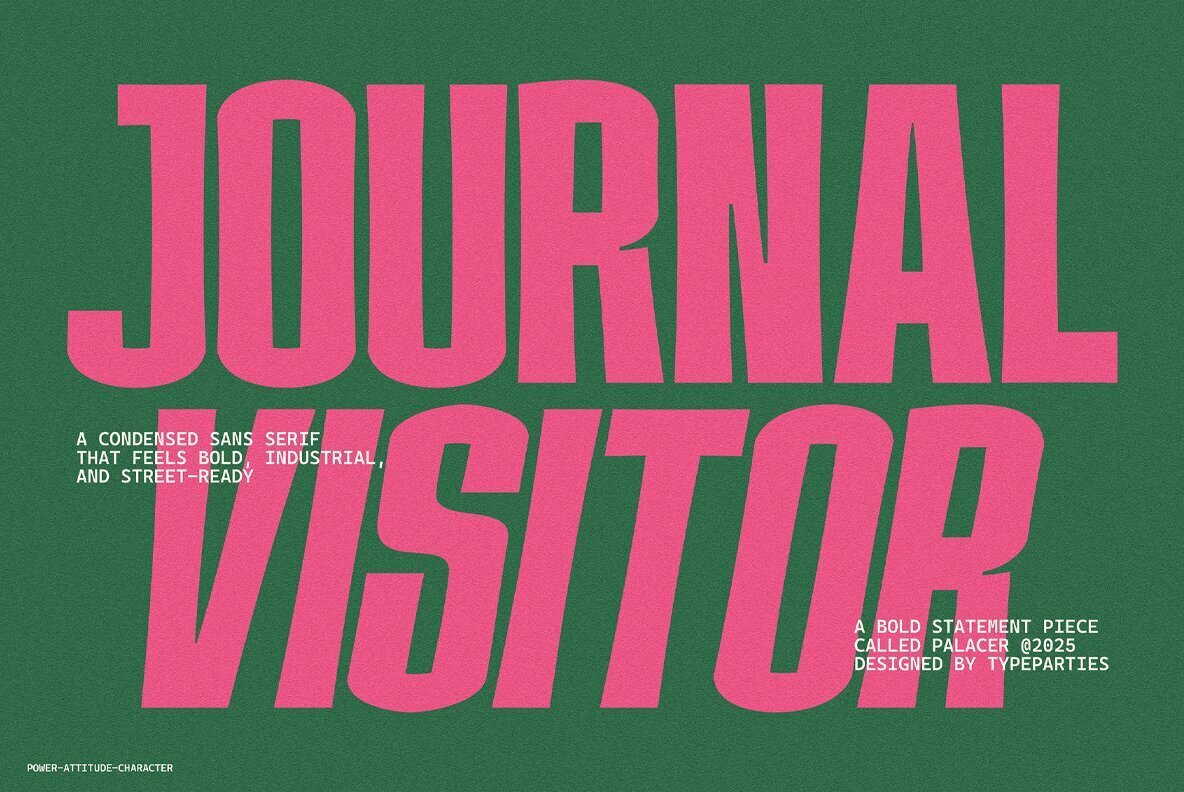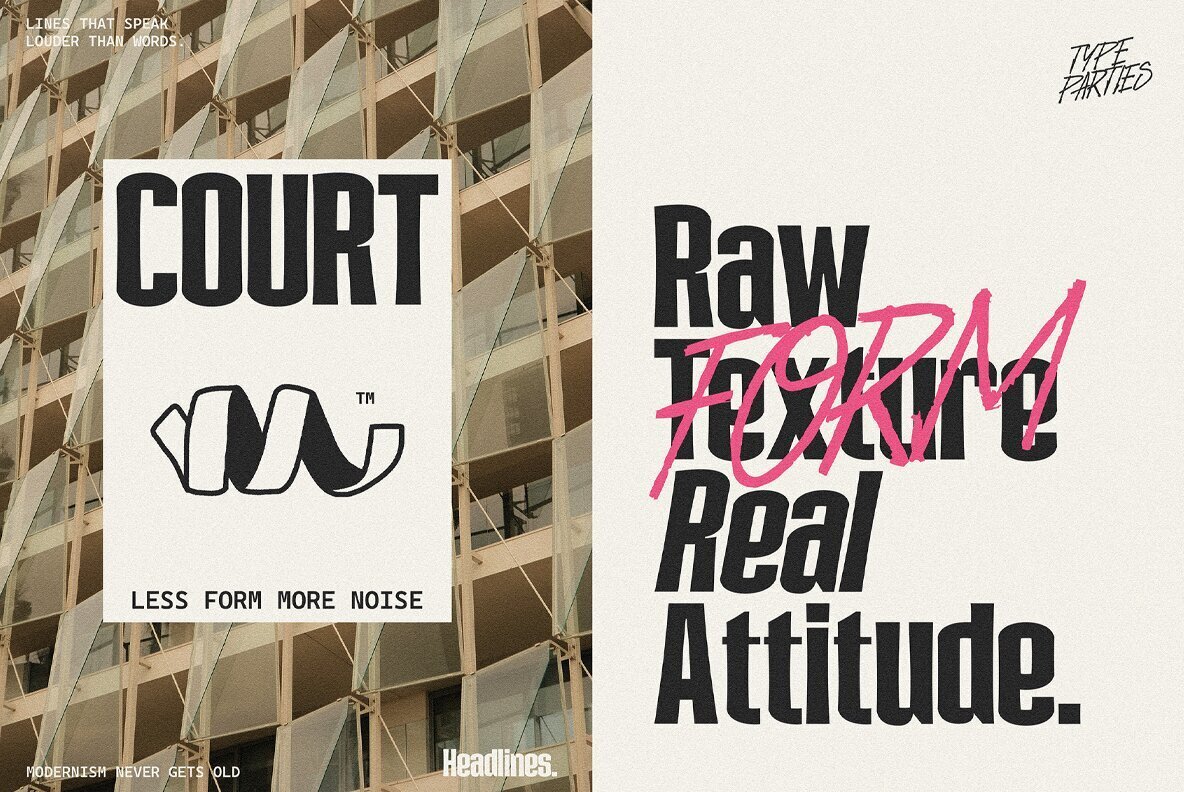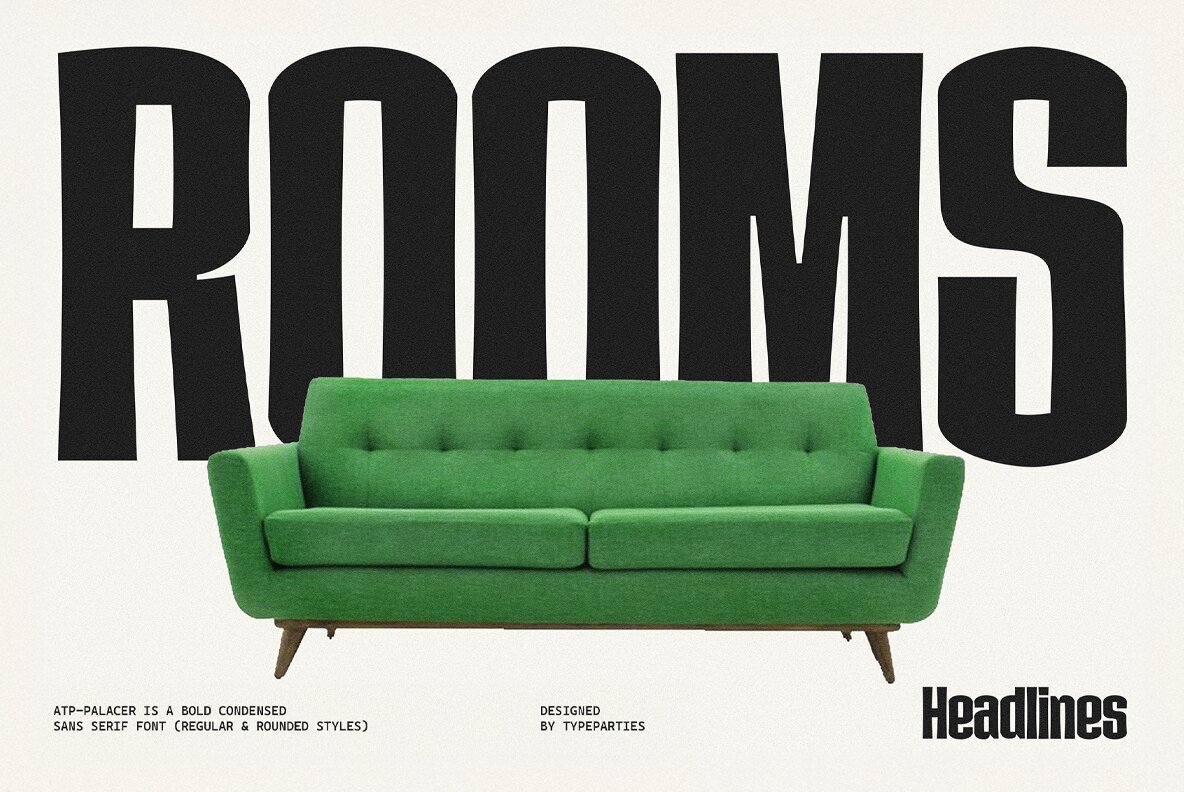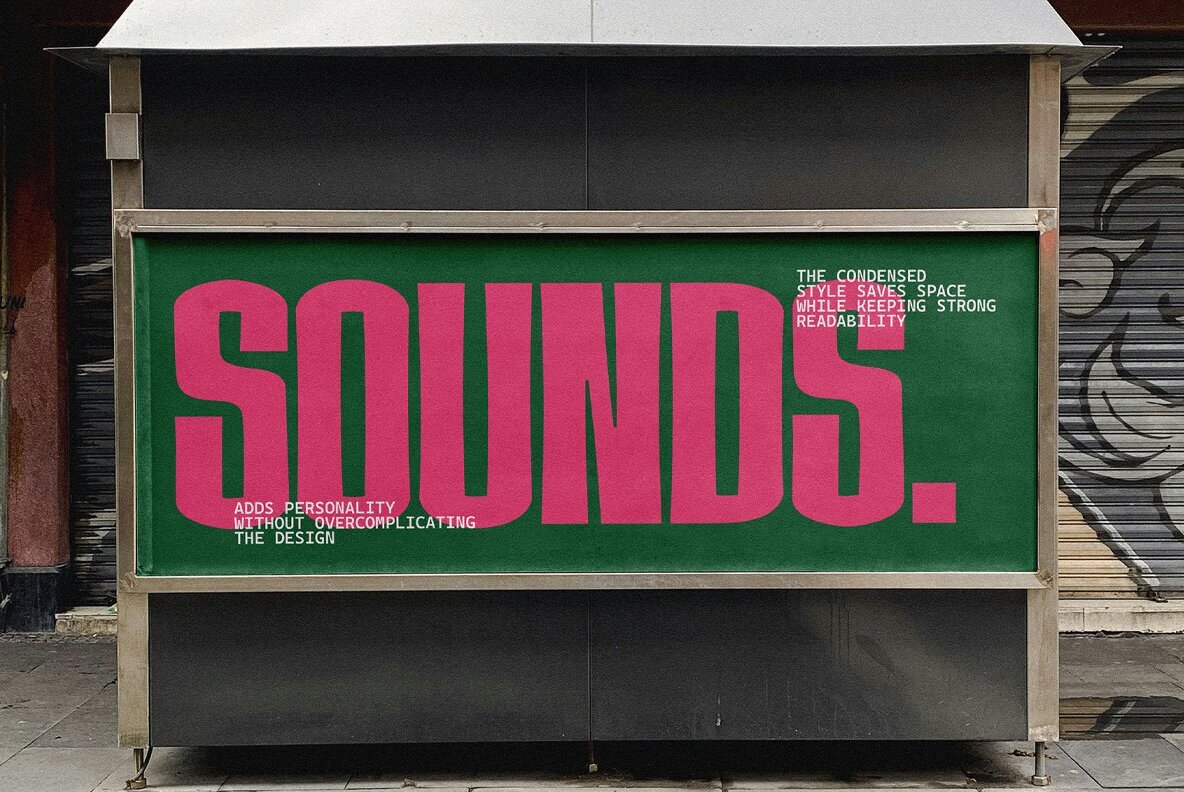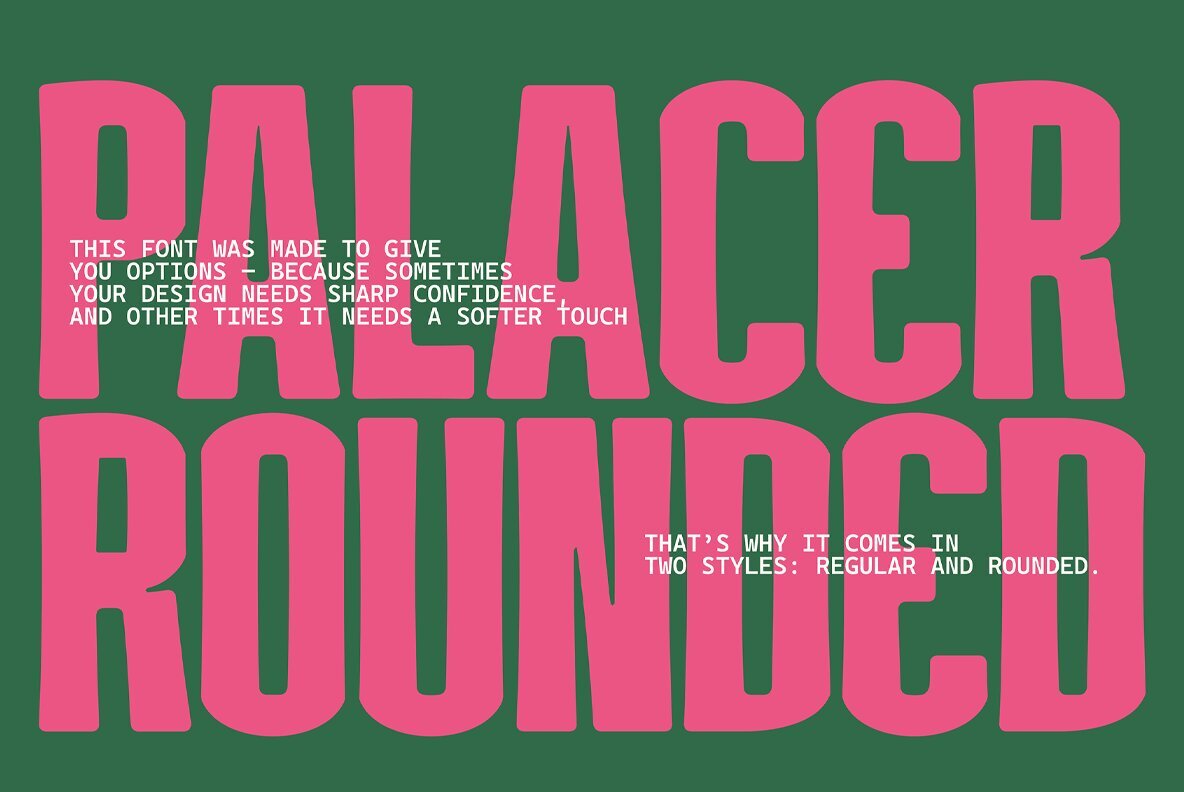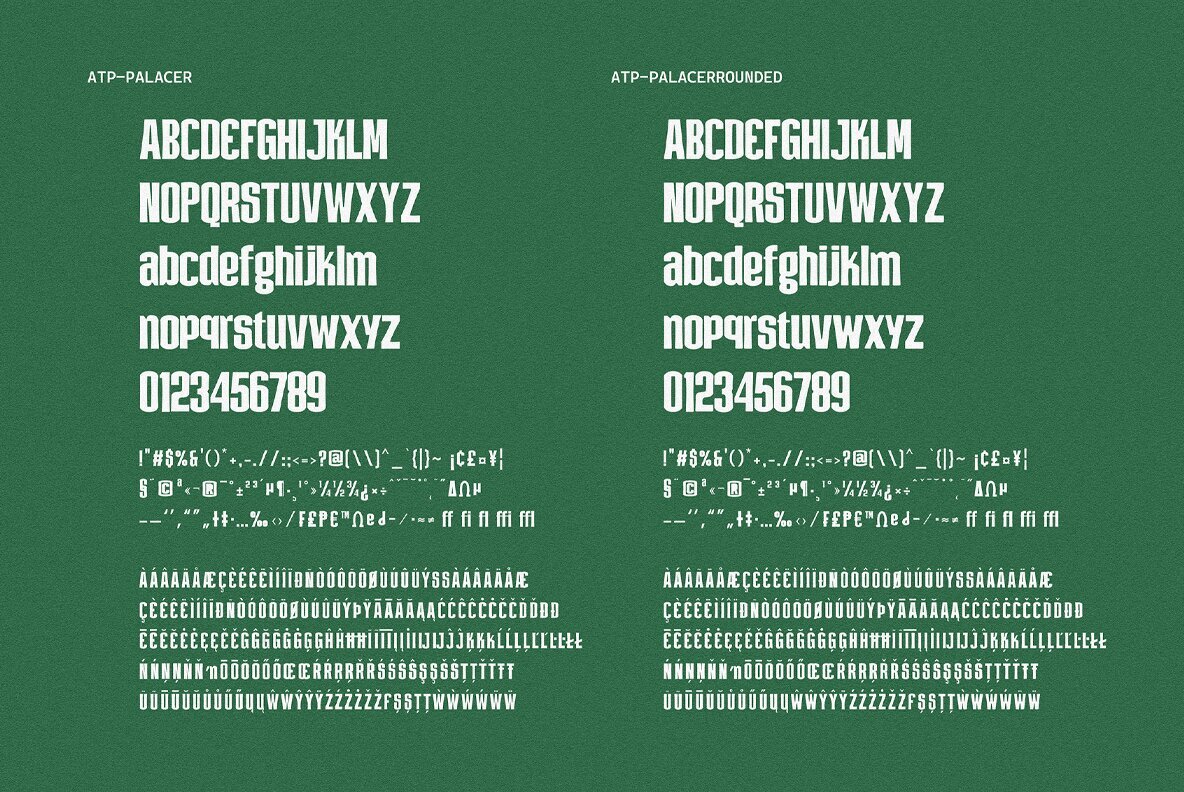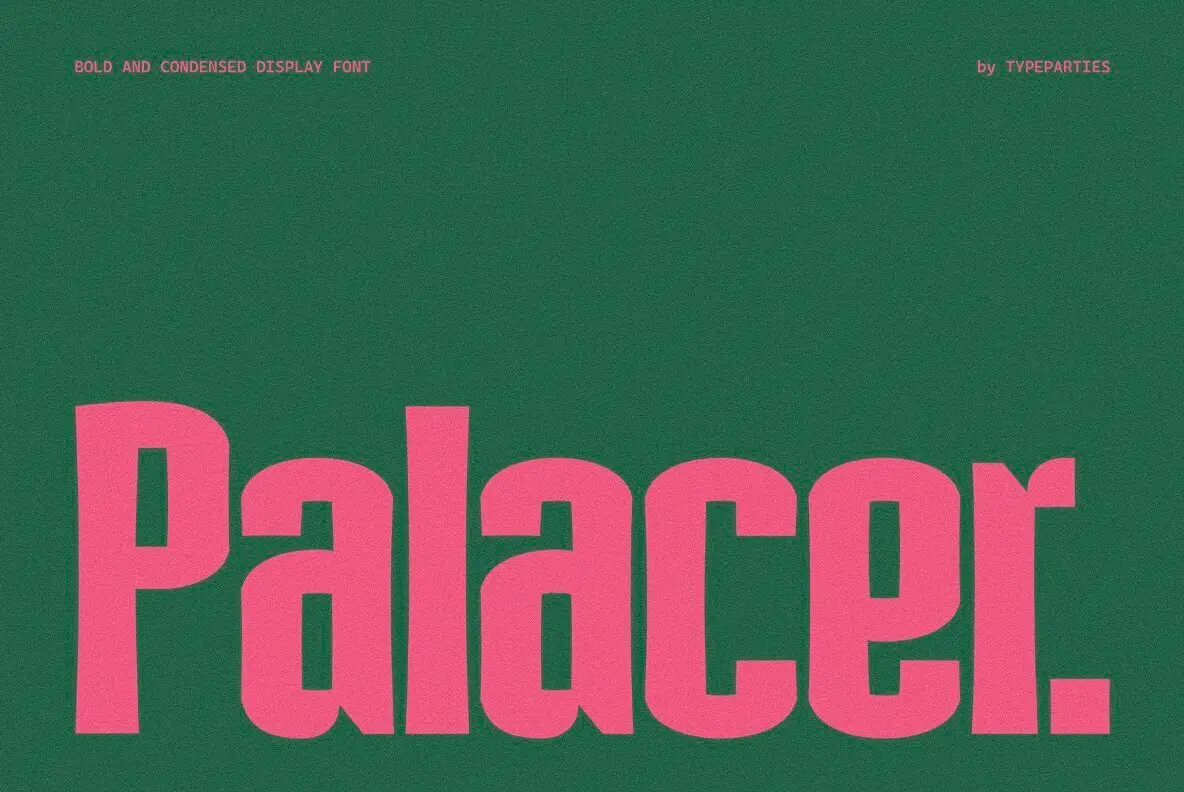
Palacer Font
Palacer is a striking, condensed sans serif typeface that captures the essence of vintage industrial design while remaining contemporary. Featuring tall letterforms and robust strokes, it exudes a raw energy that is perfect for high-impact projects. Designed to provide versatility, Palacer is available in two styles: Regular and Rounded. The Regular version commands attention with its bold and clean lines, making it ideal for strong, assertive designs. In contrast, the Rounded version retains the same substantial presence, but with smoother edges for a softer, more welcoming feel. Features:Palacer: An Industrial Sans Serif with Impact